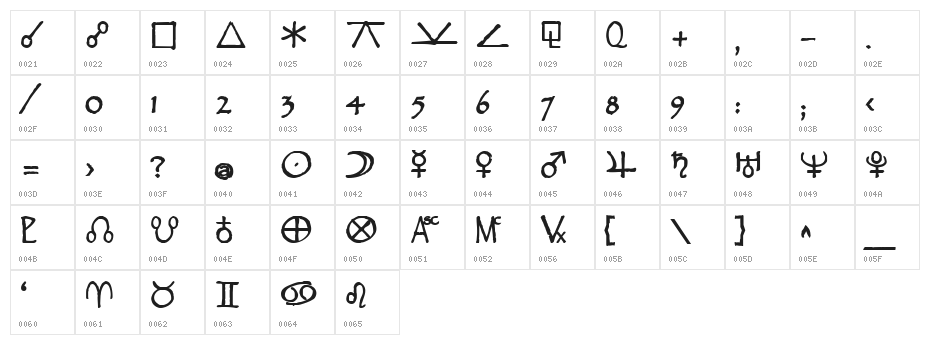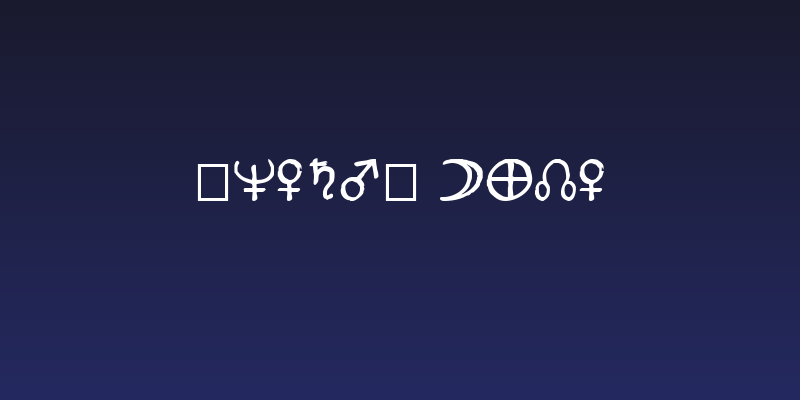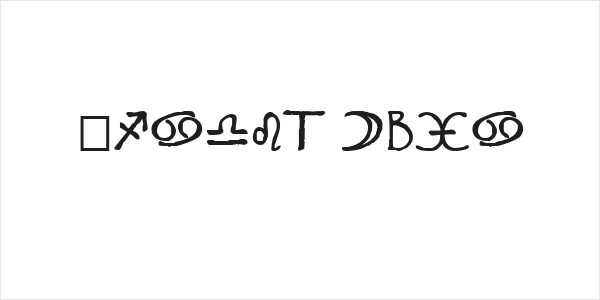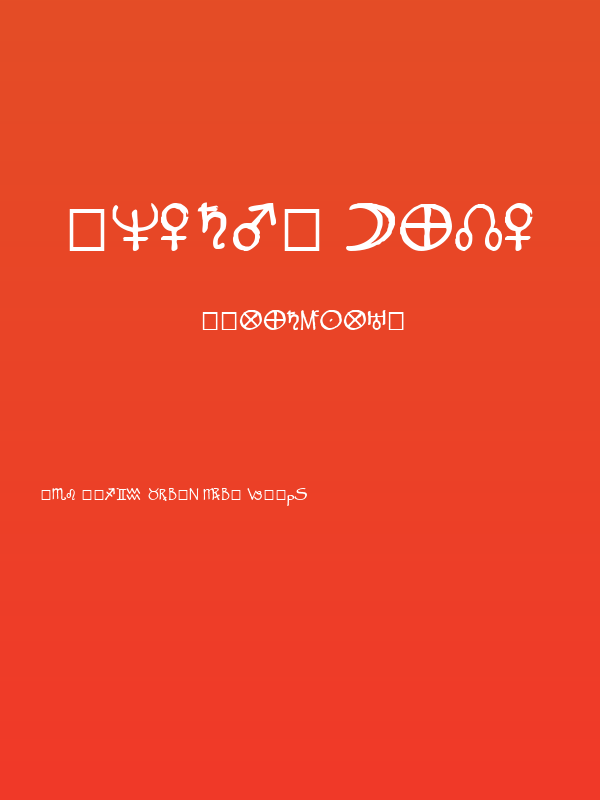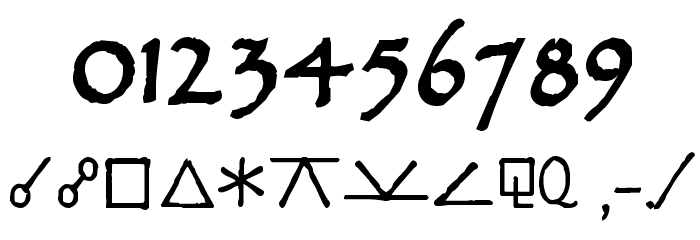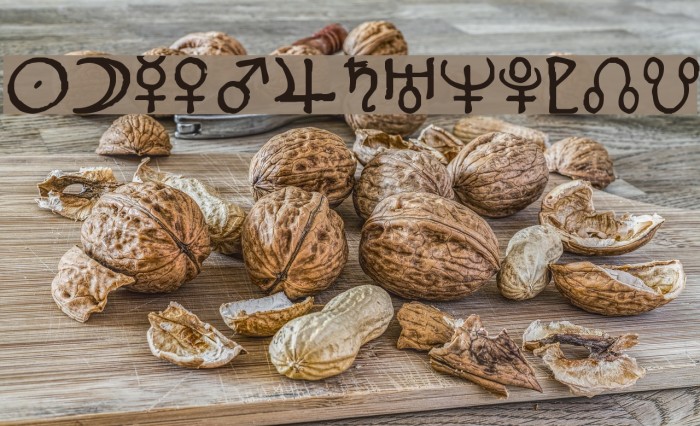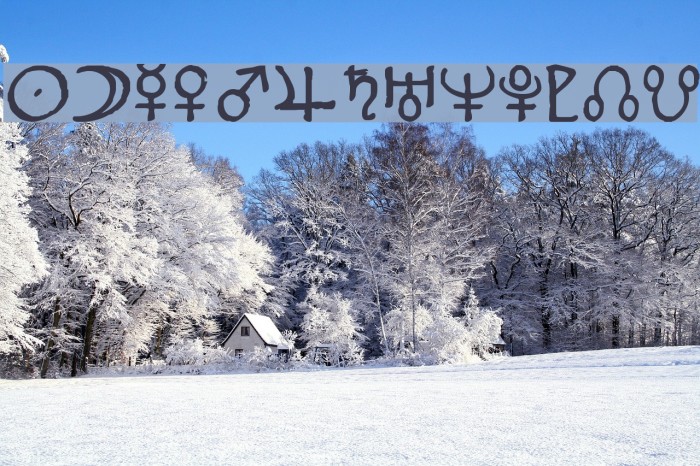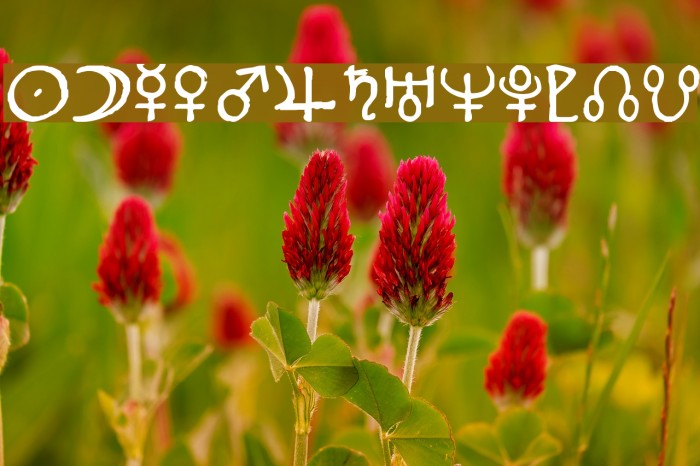
Widget Bold Font
Widget Bold Description
This font features a unique and eclectic design, characterized by its abstract and symbolic glyphs. The characters are highly stylized, with a mix of geometric and organic shapes that create a sense of mystery and intrigue. The font includes a variety of symbols and shapes that resemble ancient scripts or coded languages, making it ideal for creative and artistic projects. Its bold and expressive nature stands out, making it suitable for use in designs that require a distinct and unconventional aesthetic. The font's irregular and varied forms give it a dynamic and playful feel, perfect for experimental and avant-garde applications.
| Overall Style | Avant-garde |
| Use Case | Logos, Artistic projects, Experimental designs |
| Proposed Projects | Ideal for artistic projects, experimental designs, and creative branding. |